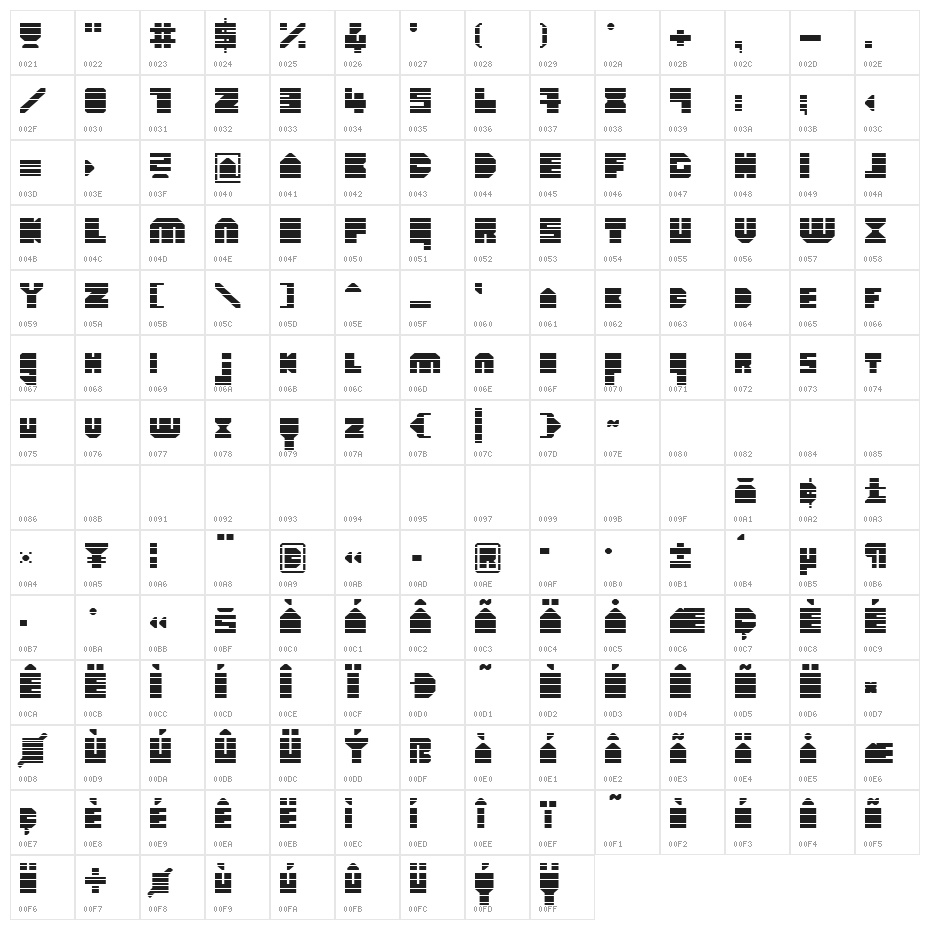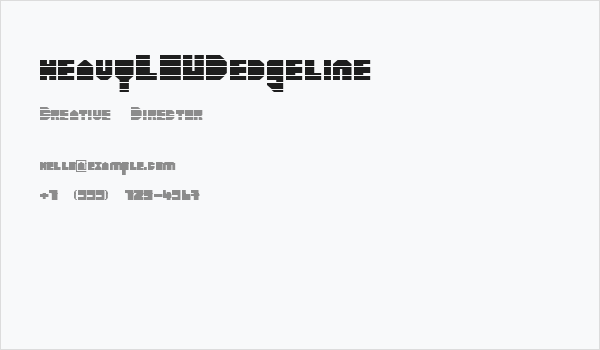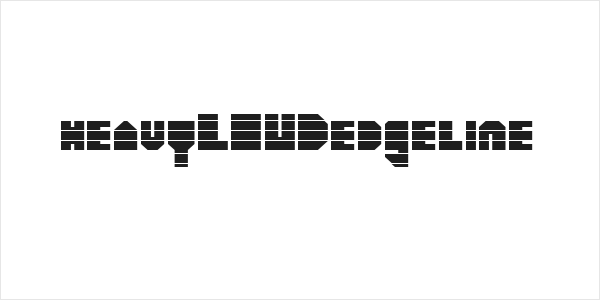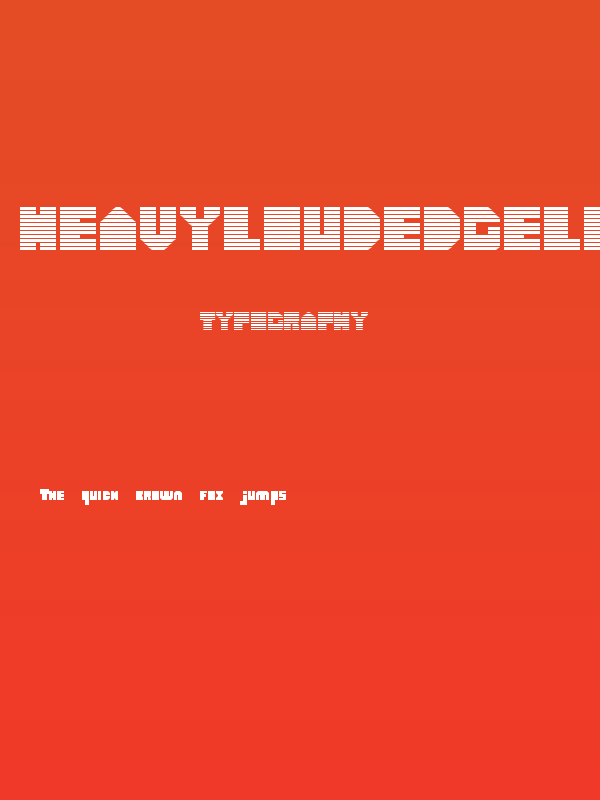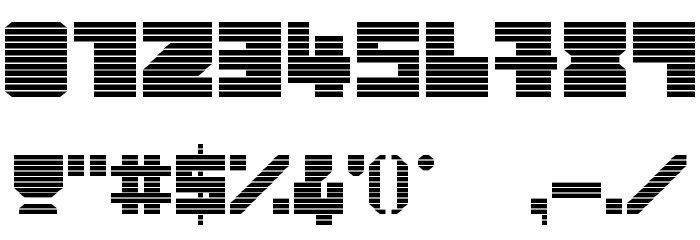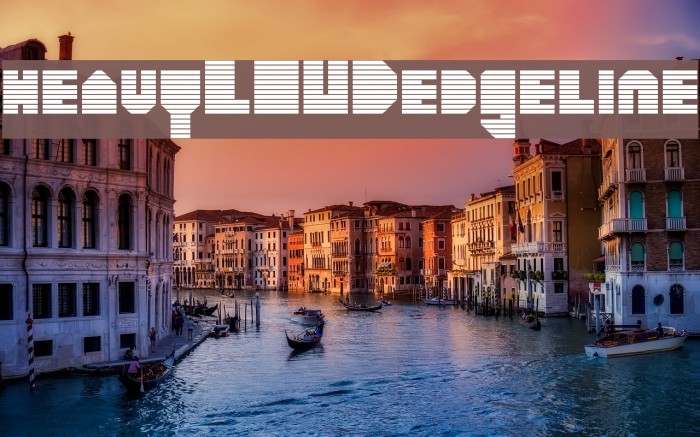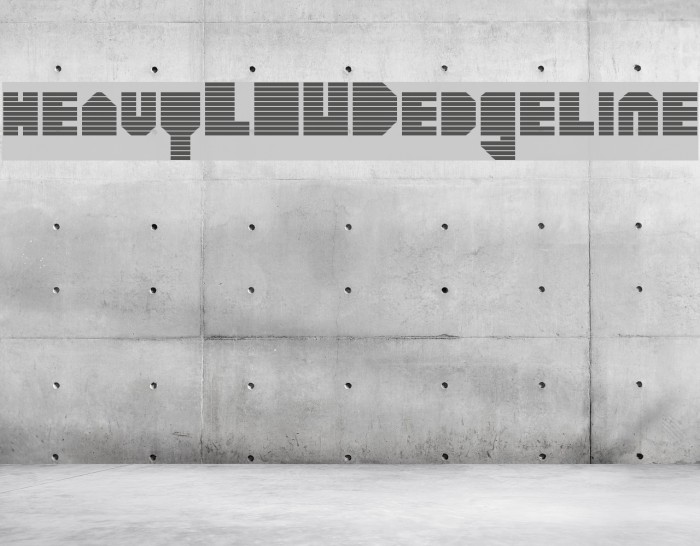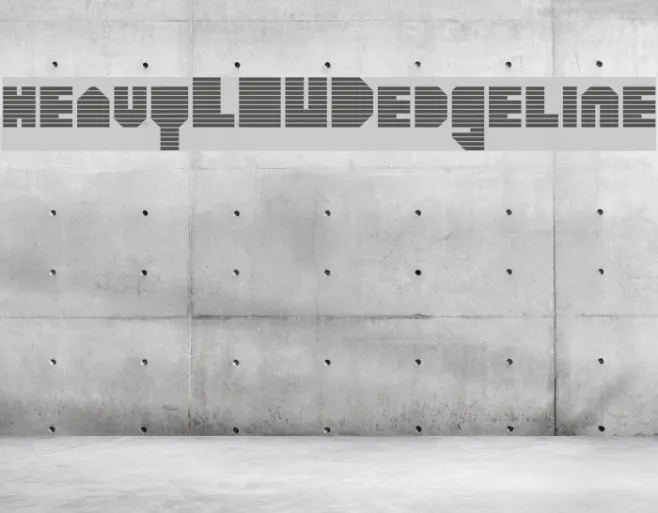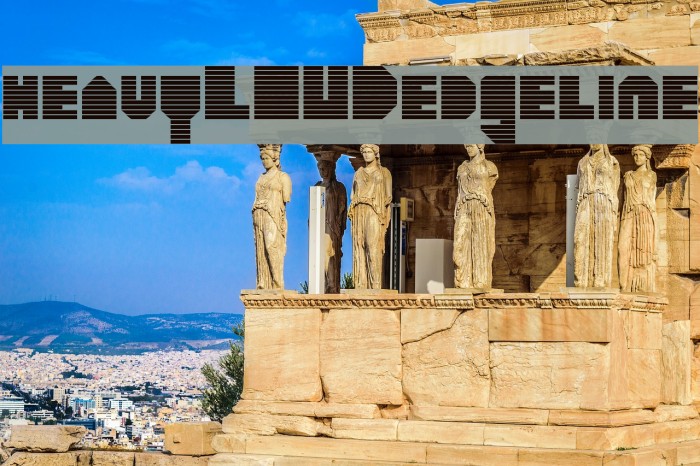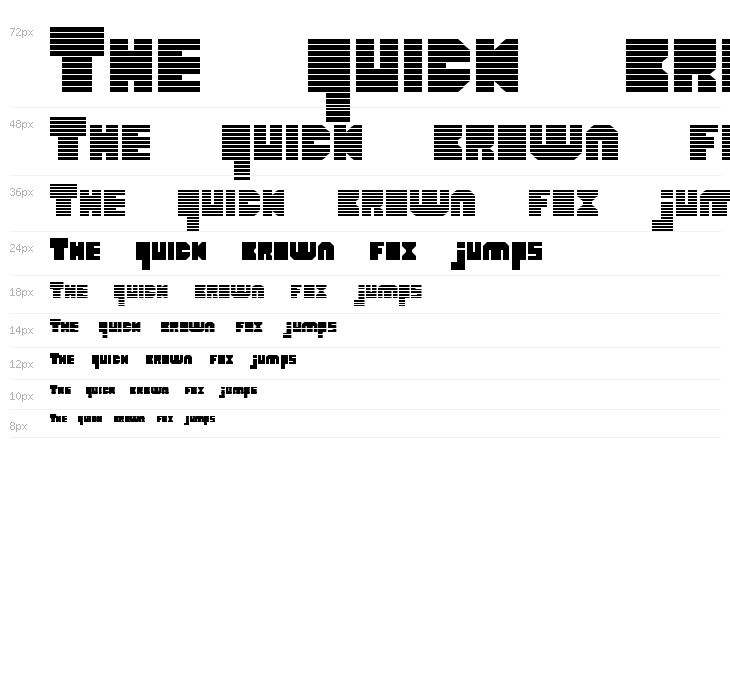
heavyLOUDedgeline Font
heavyLOUDedgeline Description
This font features a bold, geometric design with a distinctive horizontal line pattern running through each character. The characters are constructed with a series of parallel lines, creating a striped effect that gives the font a modern and industrial look. The uppercase and lowercase letters maintain a consistent style, with sharp angles and clean edges. The numbers and special characters follow the same design principles, ensuring uniformity across all elements. This font's unique style makes it stand out, making it suitable for eye-catching designs.
| Proposed Projects | Ideal for futuristic branding, tech-related projects, posters, and digital artwork. |